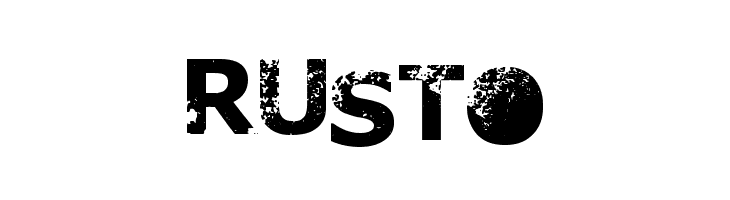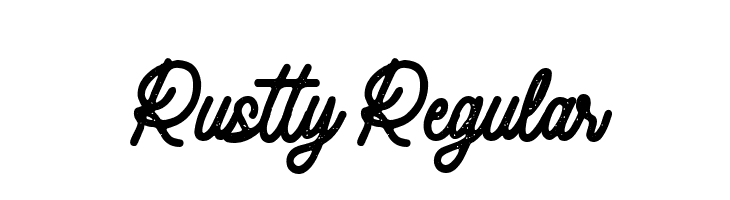
A bold, playful handwritten font with rounded, irregular letterforms.
( Fonts by Paul Lloyd )
A bold, decorative blackletter font with intricate details and a medieval flair.
( John Gauthier - John Gauthier )
A bold, angular font with a dynamic and modern style.
A playful, handwritten font with bold, whimsical characters.
( Fonts by Edignwn Type )
A distressed, vintage-style font with a rugged, printed look.
A rustic, handcrafted font with a vintage flair.
A playful, handwritten font with dynamic strokes and a casual style.
A distressed, textured font with a rugged, vintage feel.
A bold, artistic font with curvy, whimsical letterforms.